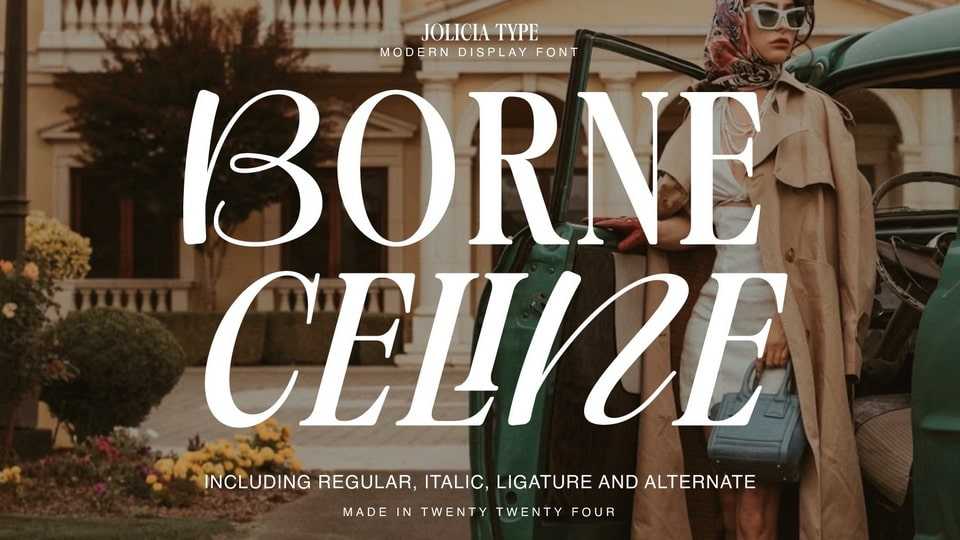
Download Borne Celine font, a sophisticated serif typeface infused with signature elegance. Borne Celine font features a harmonious blend of traditional serif elements and a signature touch.